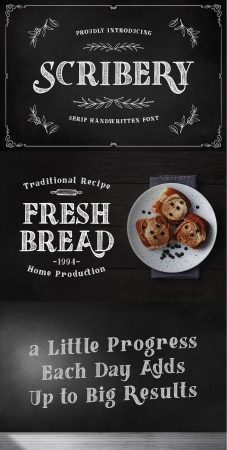
Scribery is a stunning handwritten serif font with a timeless style. It will add a dash of raw style to a wide variety of crafting projects. Features